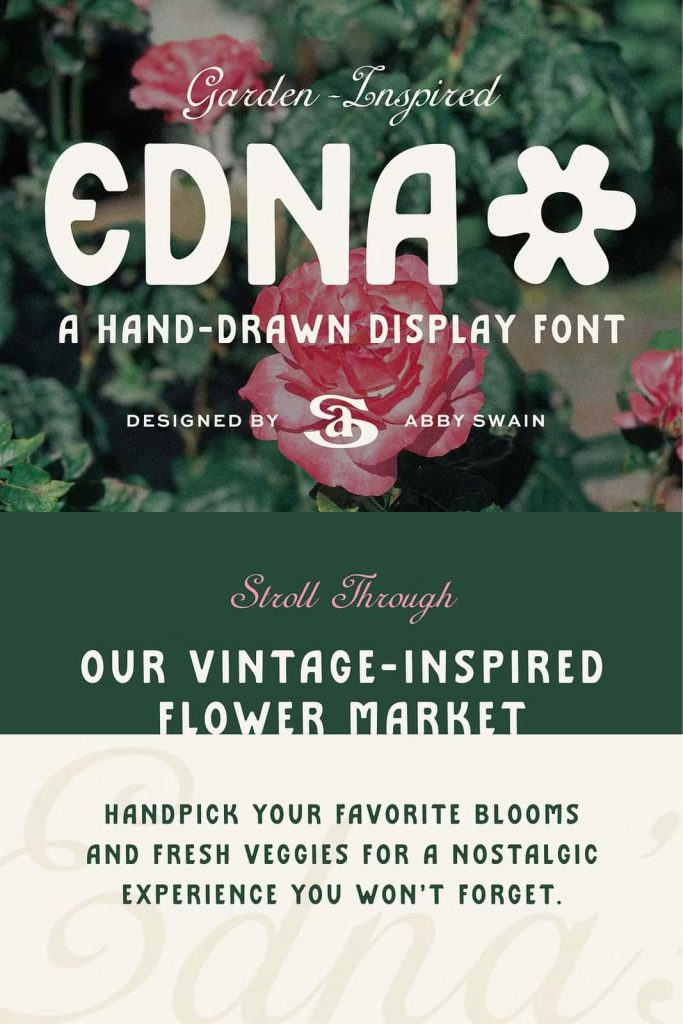
Meet Edna, a charming hand-drawn sans serif display font inspired by coastal gardens and fresh farm stands. Edna blends softness with durability and includes quirky alternates so you can effortlessly customize and add character to all your collateral.